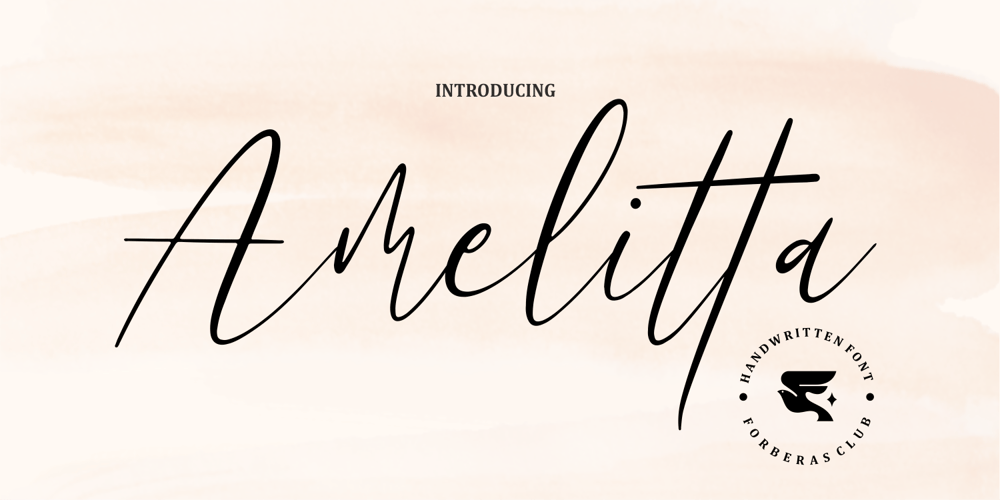
Amelitta
Amelitta font
Amelitta Font Family was designed by ANGGI HERMAWAN and published by Forberas Club. Amelitta contains 1 styles and family package options. Amellata is handwritten font. Recommended to use for children theme, funny theme, comics, cartoon, simple write, poster and display.